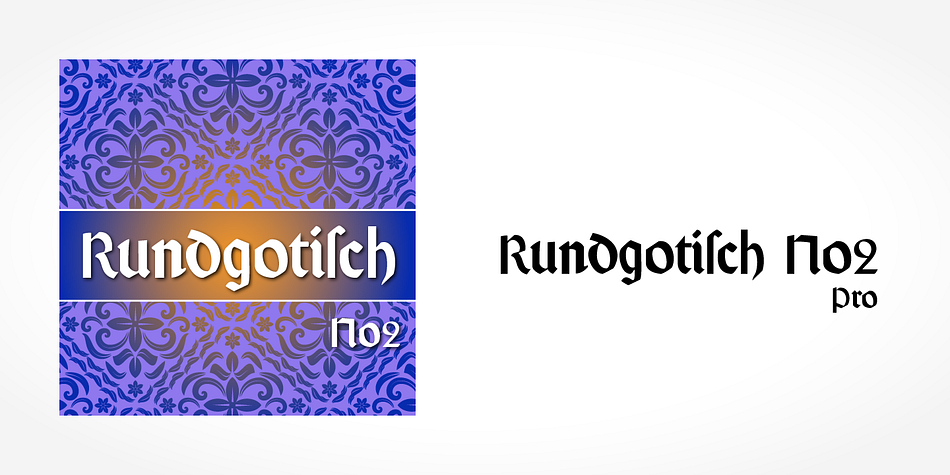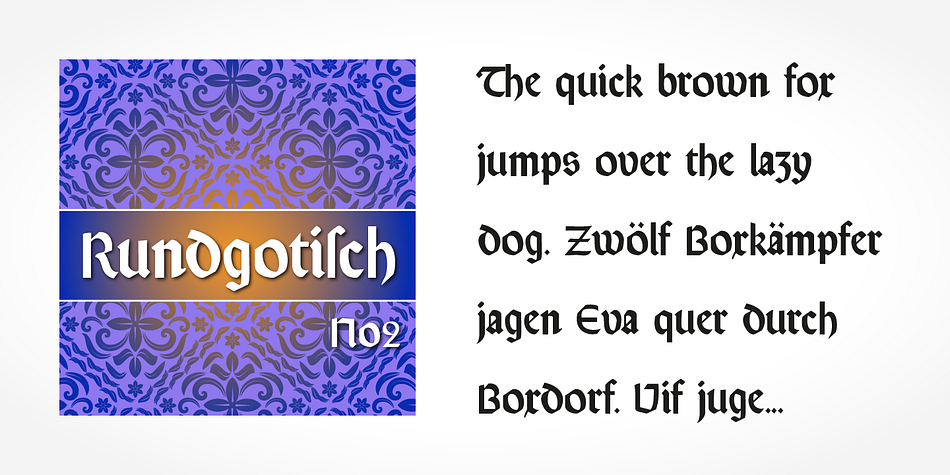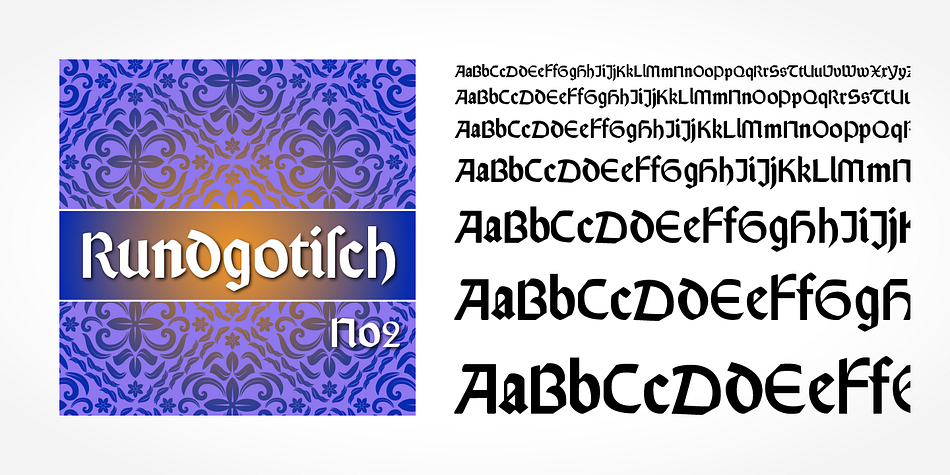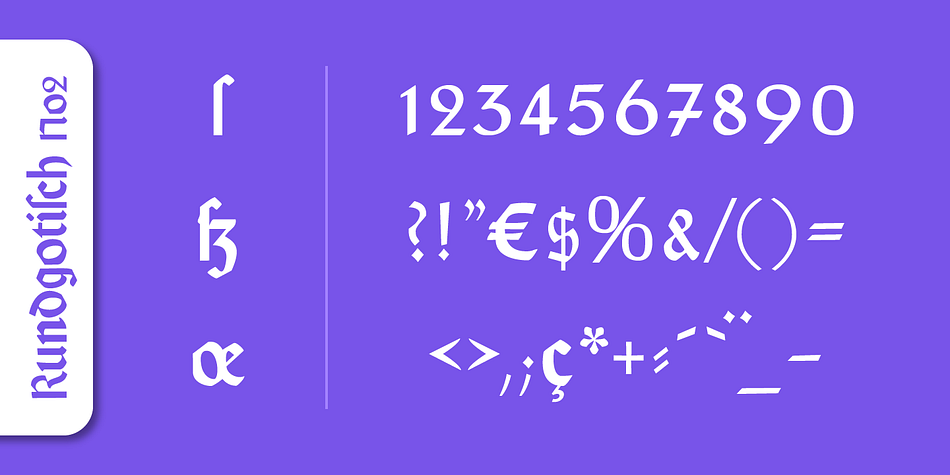
Rundgotisch No2 Pro is a blackletter font published by SoftMaker.
Blackletter is the classic “German” printing type. Starting in the 16th century and lasting well into the 20th century, most works in Germany were printed using blackletter types.
Today, blackletter fonts are mainly used decoratively. If you want to communicate a feeling of old-world quality or nostalgia, blackletter fonts are the preferred choice - use them on signs, in brochures or on invitation cards.
Rundgotisch No2 Pro is a classic blackletter font of its epoch which inspires you to create vintage-looking designs with ease.